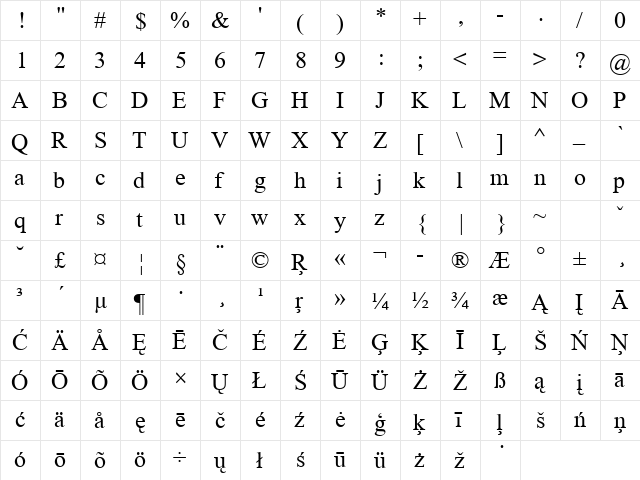
BalticSerif Normal
Design Context for BalticSerif Typeface
BalticSerif carries the refined structure of traditional serif typography, with bracketed terminals and considered proportions that communicate credibility and craft.
Pro Tip: Use BalticSerif for editorial body copy and considered headline work. Pair with a neutral sans for UI elements or captions to create a classic hierarchy.